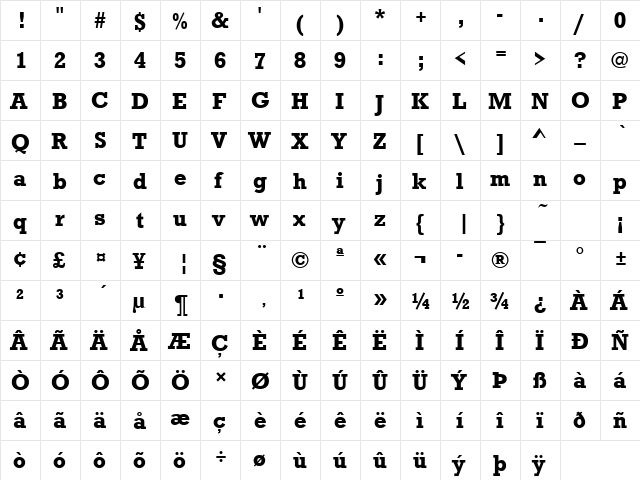
URWRogulusTMed Regular
Design Context for URWRogulusTMed Typeface
URWRogulusTMed offers clean, dependable letterforms without strong stylistic allegiance, making it a practical choice for designers who need flexibility.